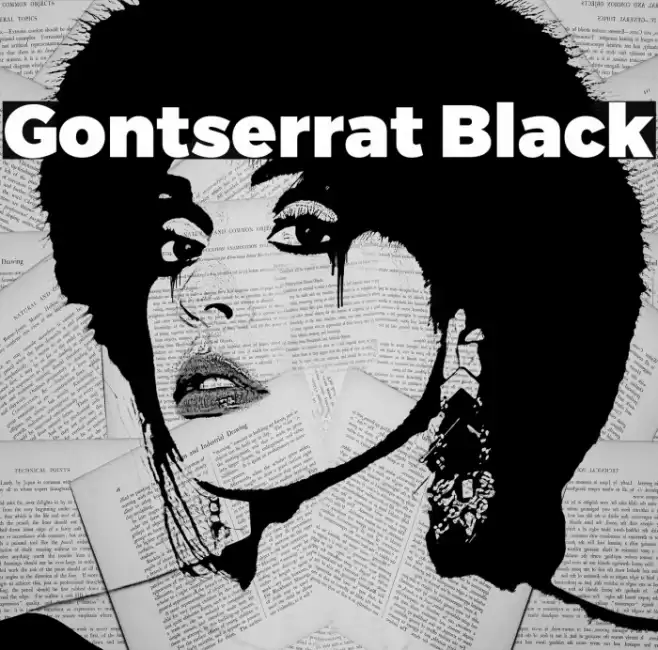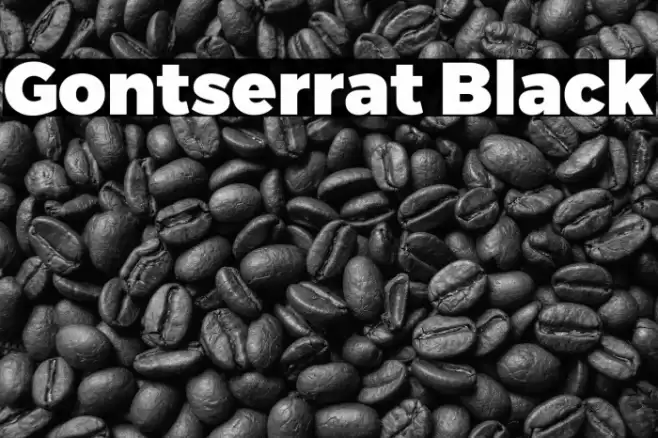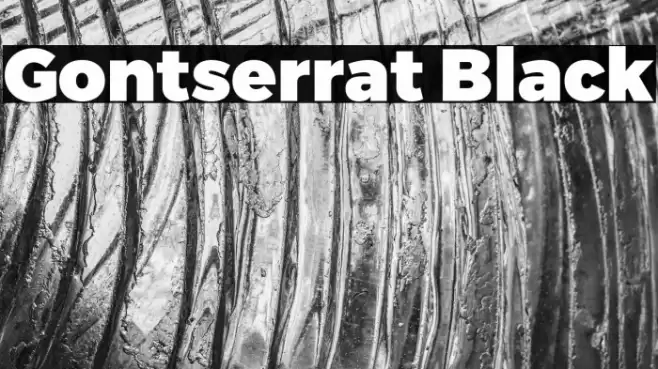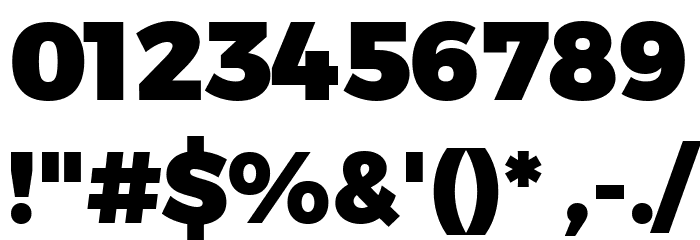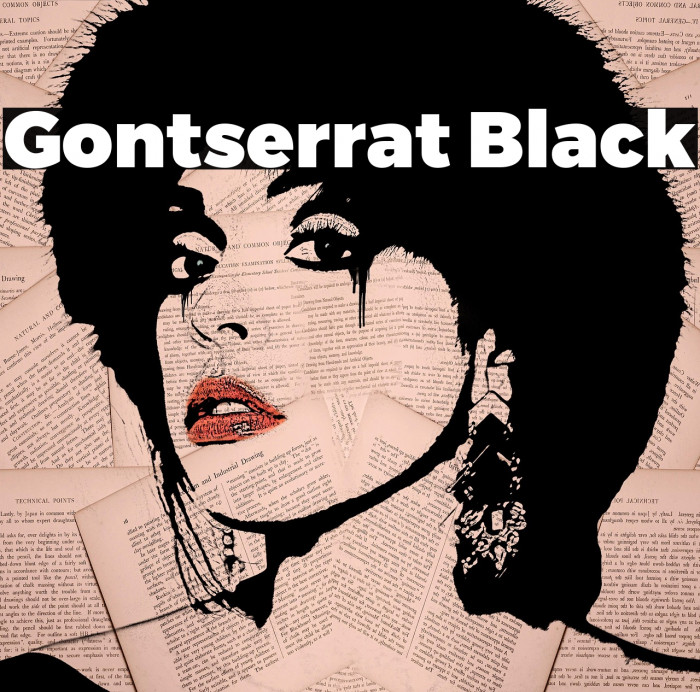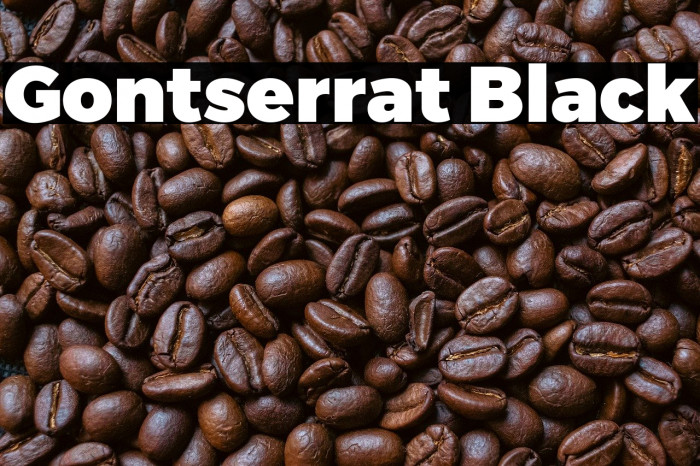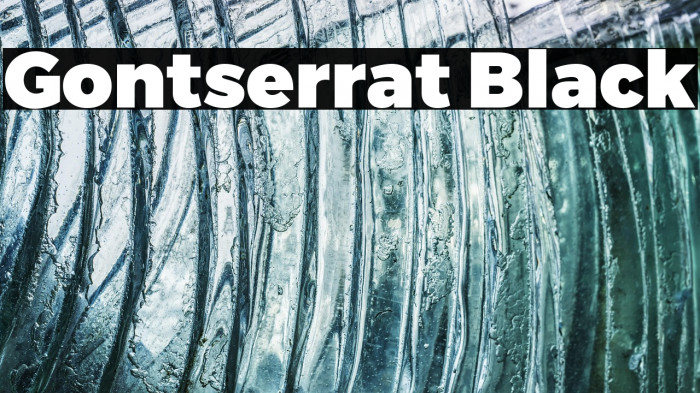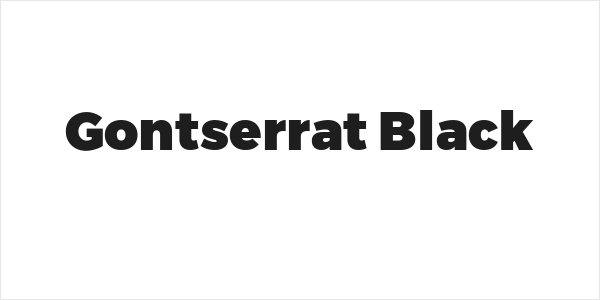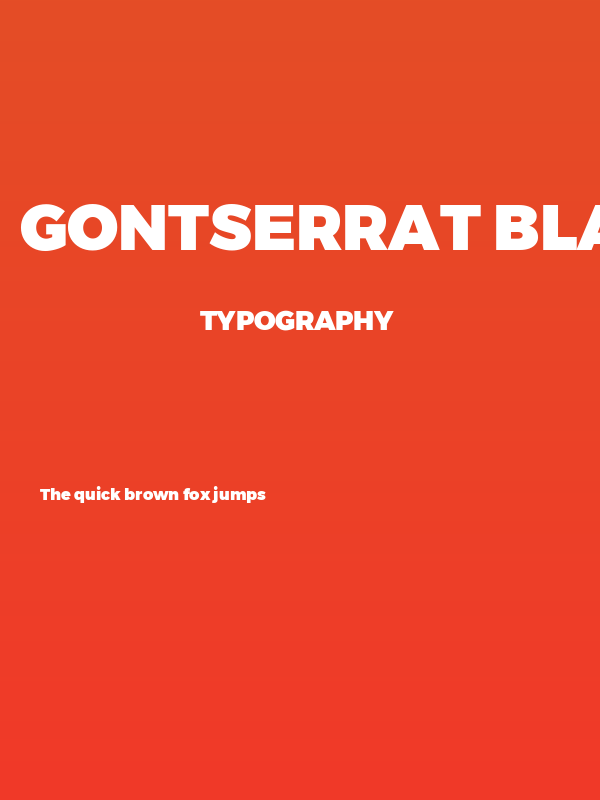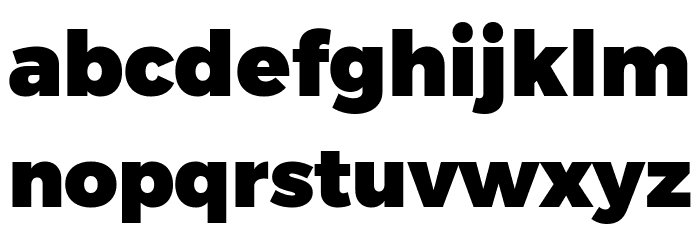
Gontserrat Black Font
Gontserrat Black Description
This font is a bold, modern sans-serif typeface with a strong presence. Its characters are uniformly thick, offering a robust and confident appearance. The design is clean and straightforward, making it highly legible. The uppercase and lowercase letters are well-proportioned, and the numerals are clear and distinct. The special characters are designed to match the boldness of the alphabet, ensuring consistency across all glyphs. This font is versatile, suitable for a variety of design needs where a strong, impactful typeface is required.
A bold, modern sans-serif font with a strong and confident appearance from Regular fonts.
- Proposed Projects: Ideal for branding, headlines, posters, and any design project requiring a bold statement.